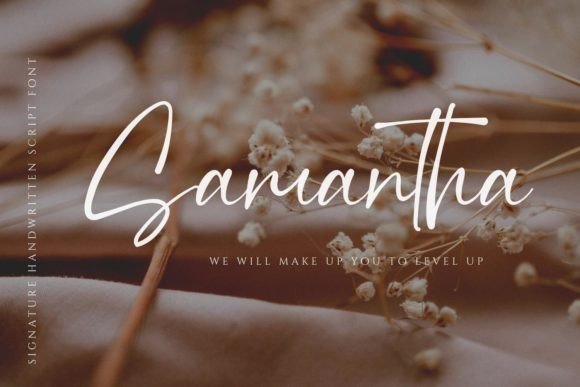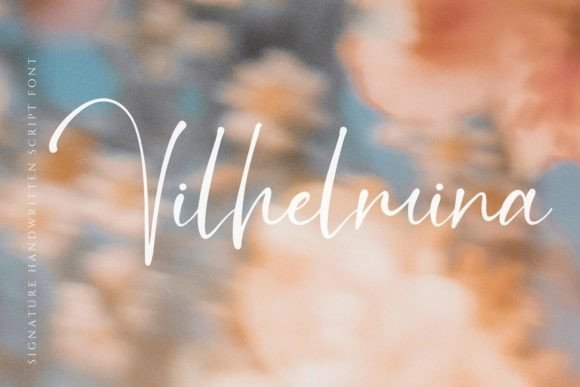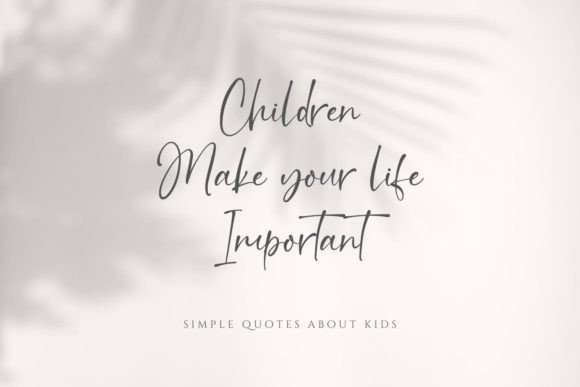
Introduction to Merillyne Font Font
Fonts play a crucial role in design, and the Merillyne Font font is a typeface that brings both character and versatility to any project. Whether you’re working on a branding project, a website, or a print design, the Merillyne Font font offers a unique style that can elevate your work.
Discover Merillyne, a captivating script signature handwriting font that brings elegance and personality to your designs.
With its beautiful cursive style, this font is perfect for adding a touch of sophistication to your projects Whether itβs creating stunning logos, eye-catching invitations, or stylish branding, Merillyne delivers a seamless handwritten look.
Key Features of Merillyne Font Font
Why Choose Merillyne Font Font?
The Merillyne Font font is more than just a typeface β it’s a design tool that helps you communicate your message with style and clarity. Its unique character set and versatile design make it suitable for a wide range of applications, from elegant invitations to bold headlines.
With its carefully crafted letterforms and balanced proportions, the Merillyne Font font ensures readability and visual appeal across all mediums.
What makes Merillyne Font font special?
The Merillyne Font font stands out with its unique design, exceptional readability, and versatility across various design applications.